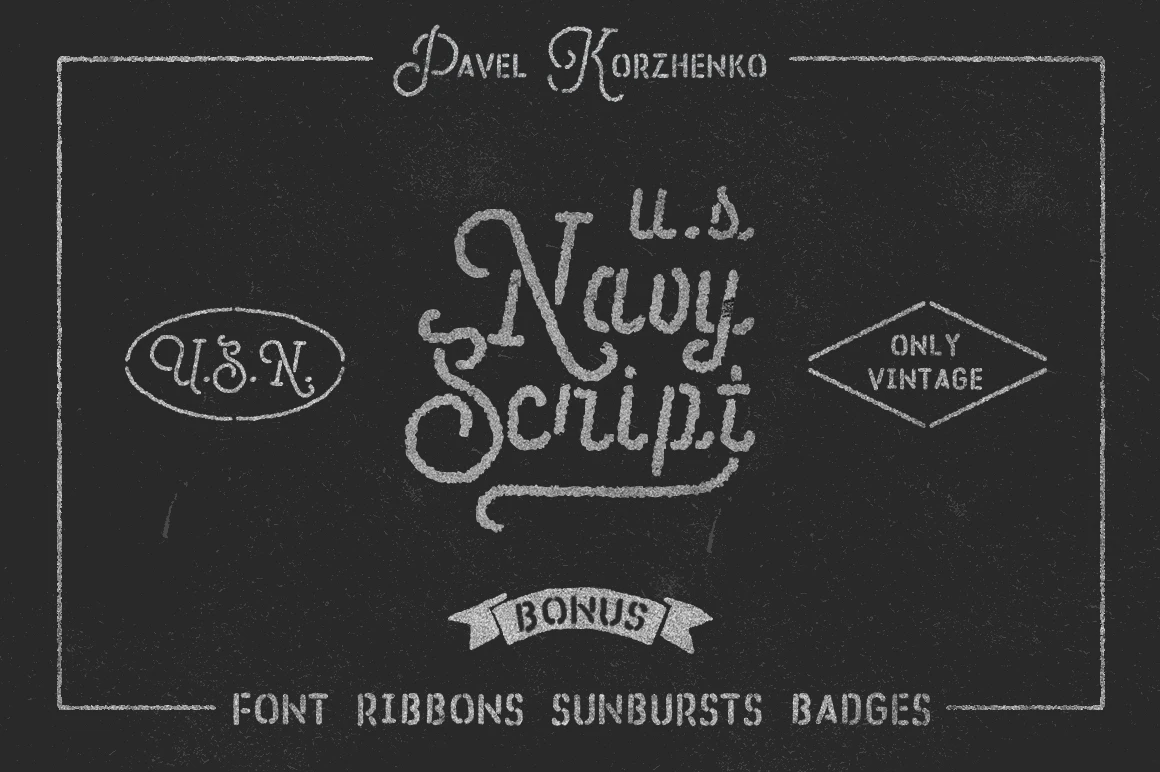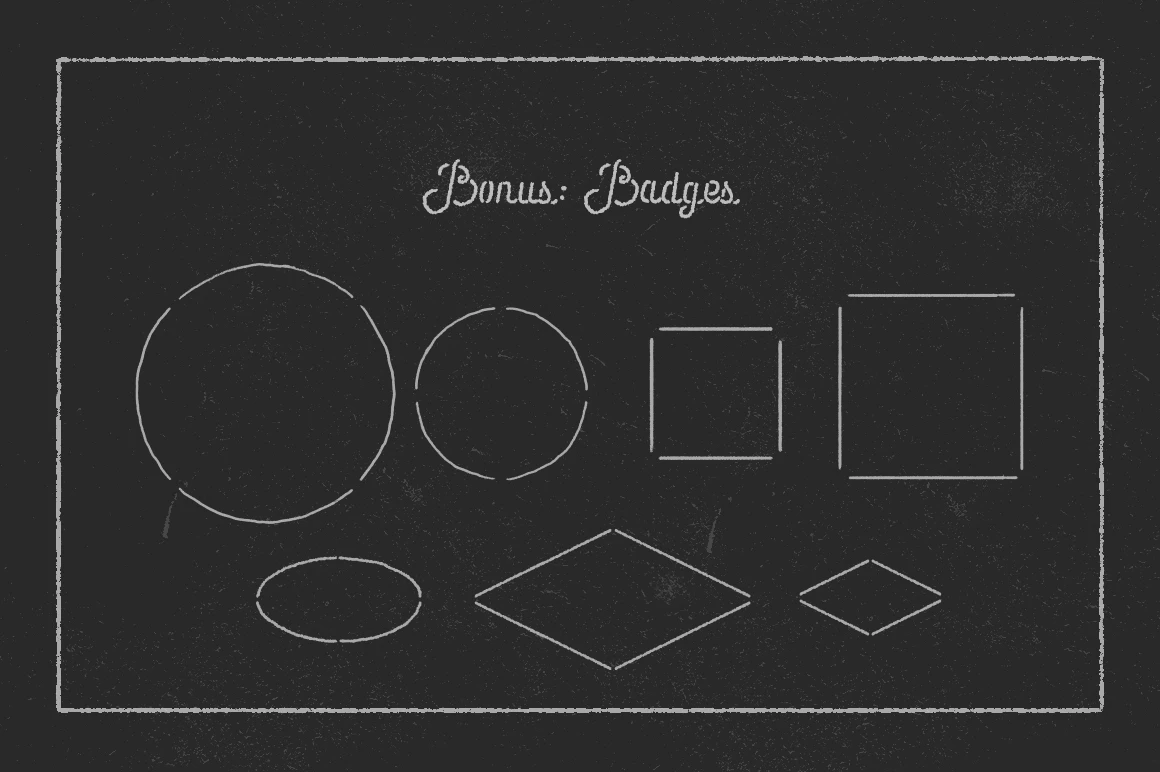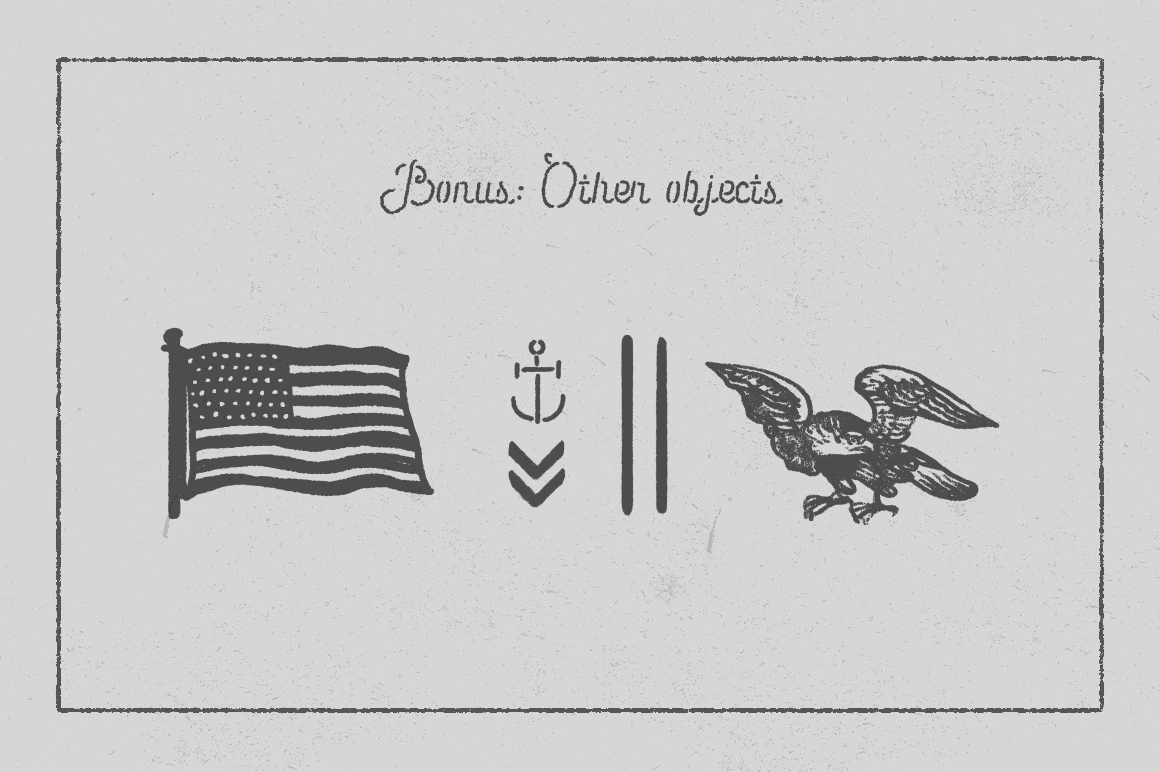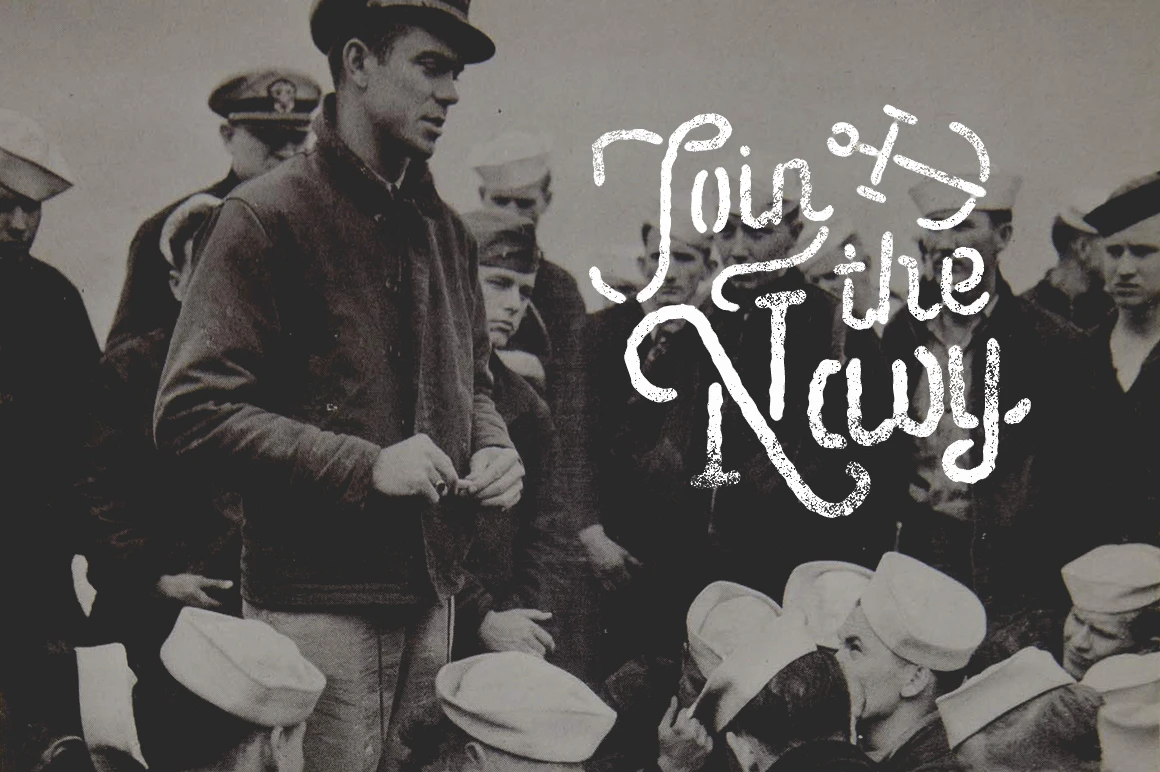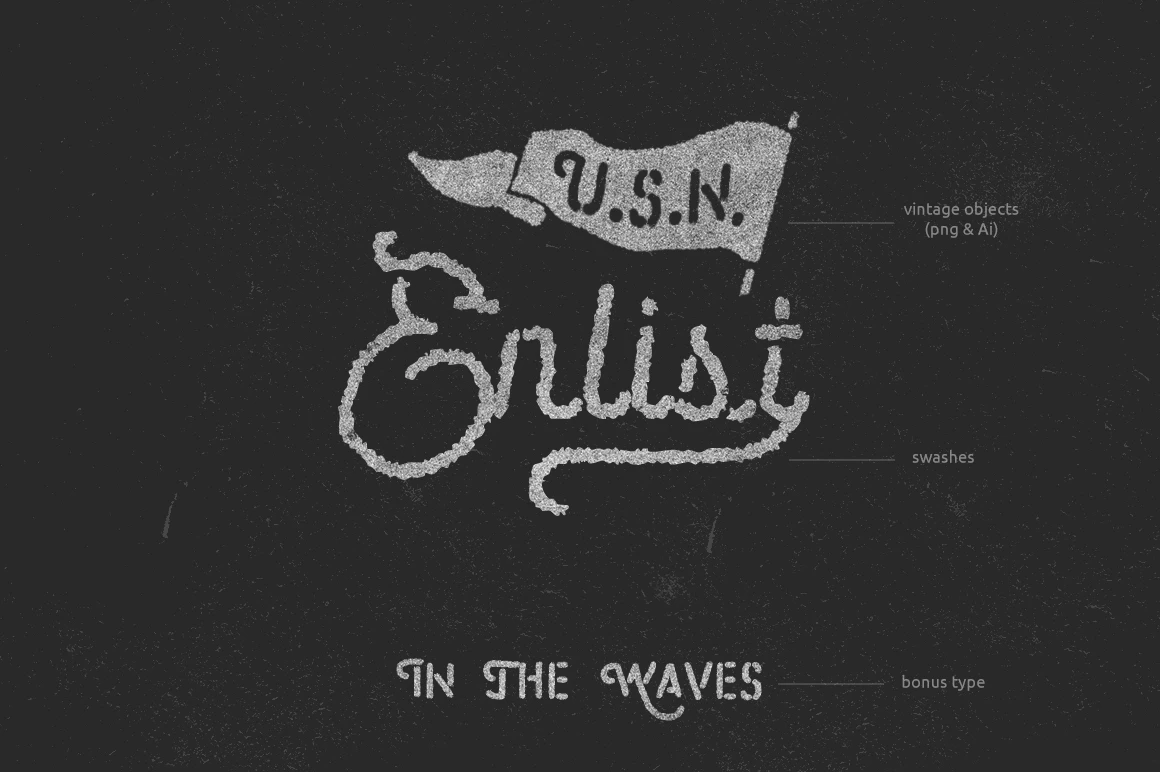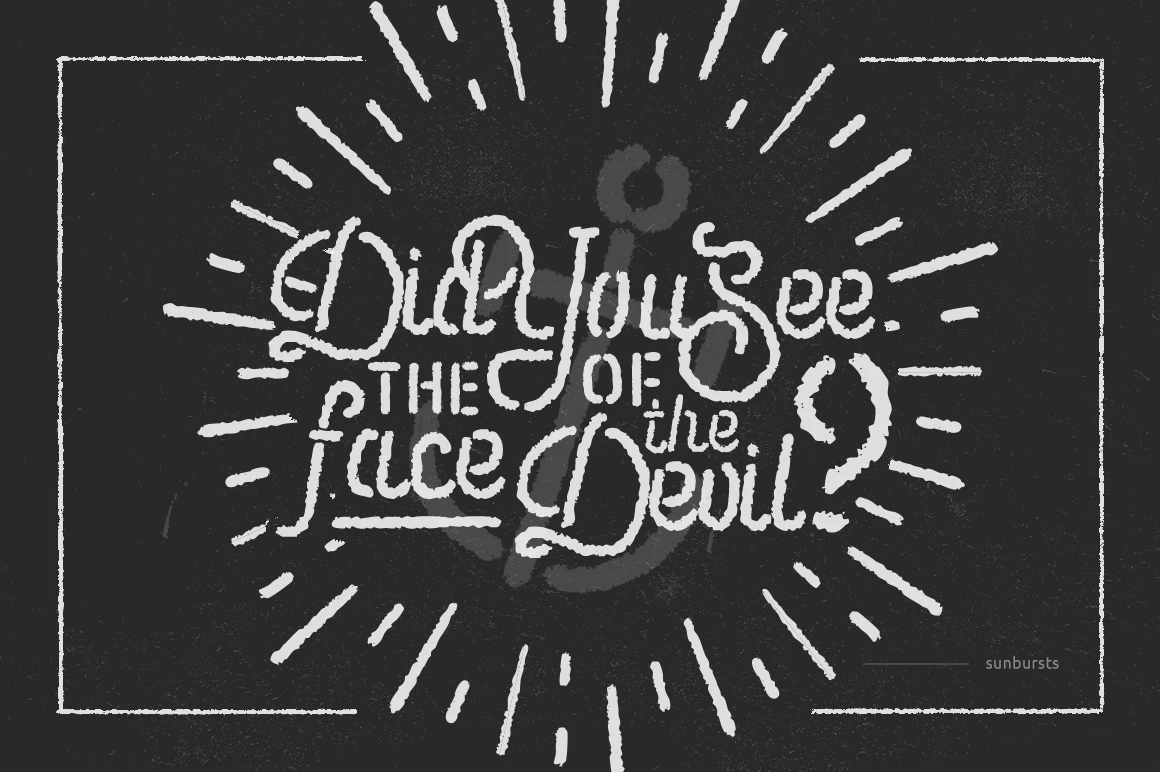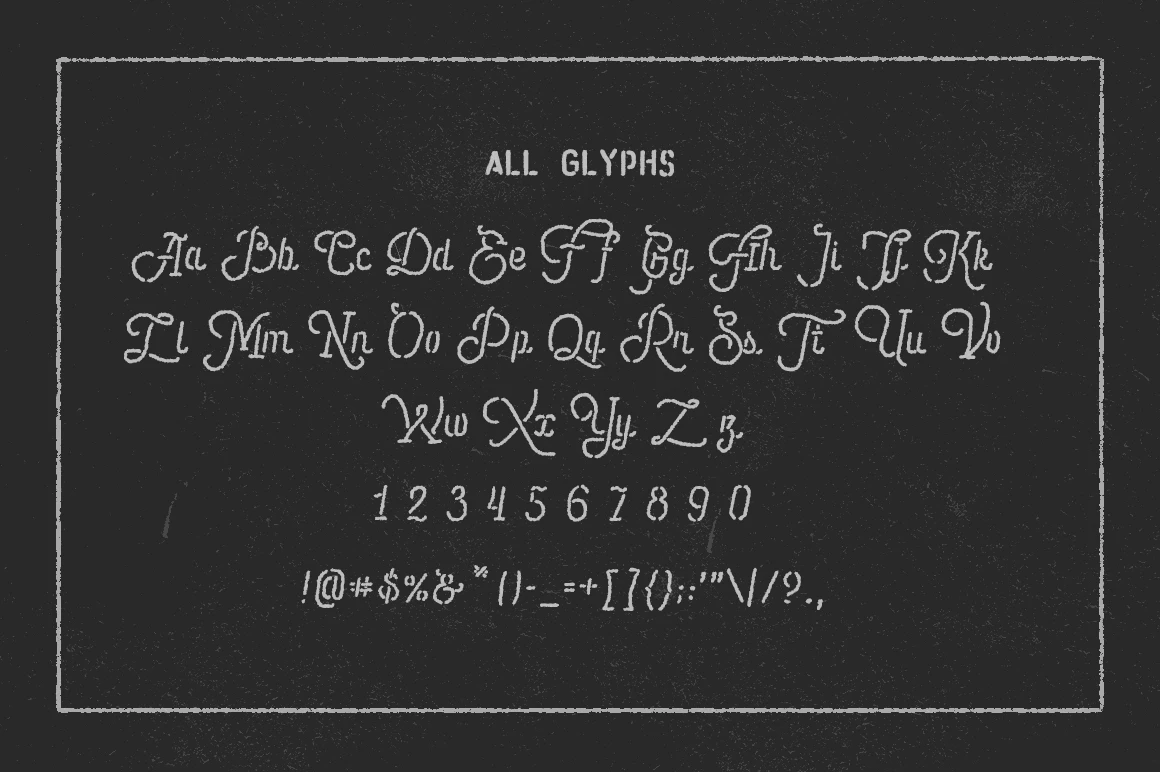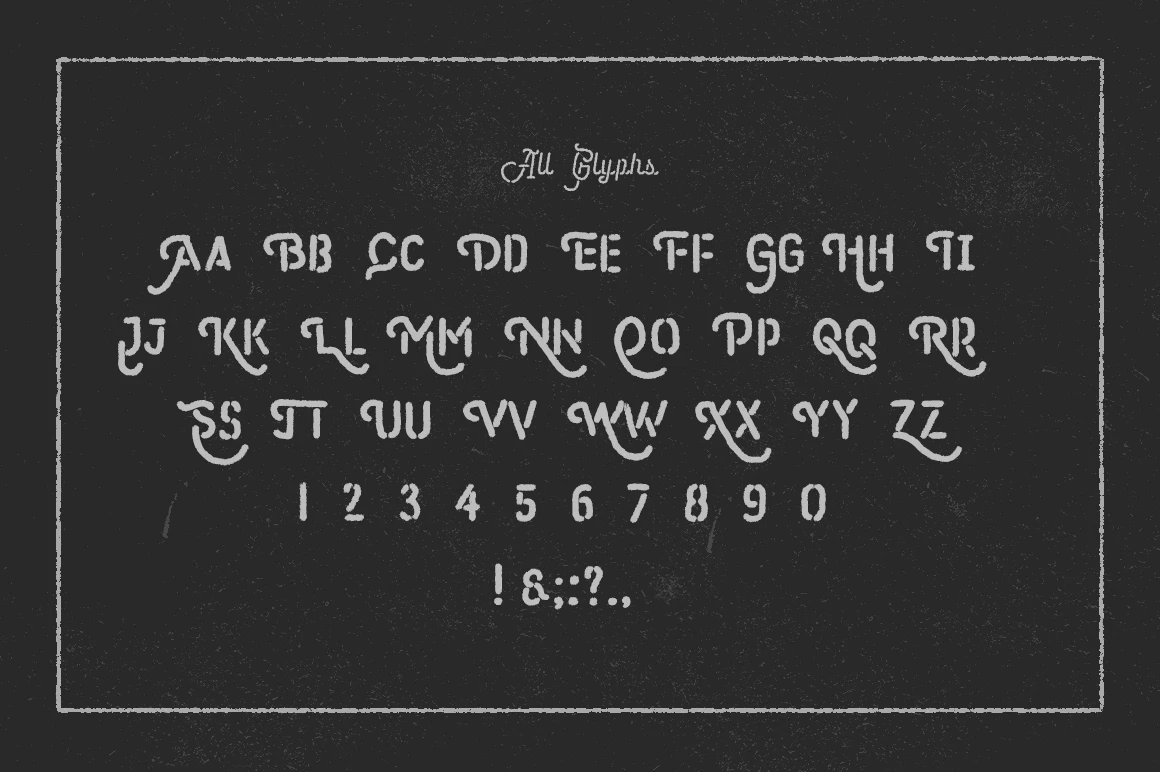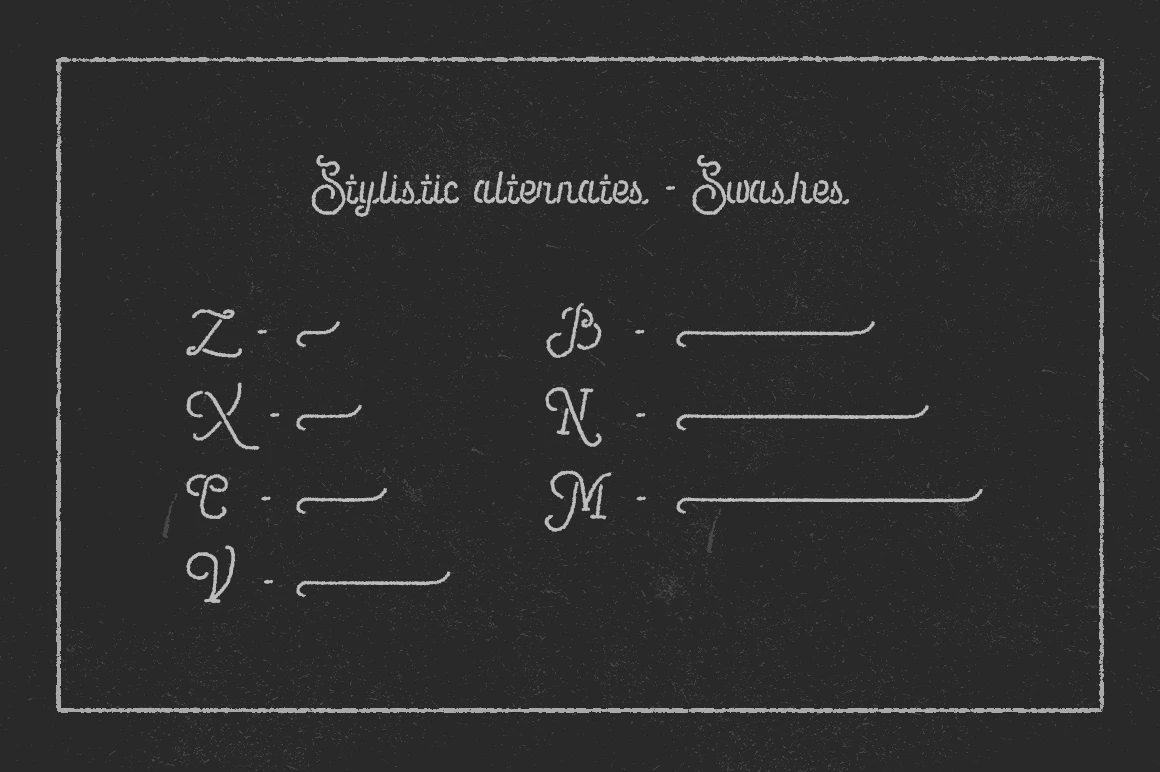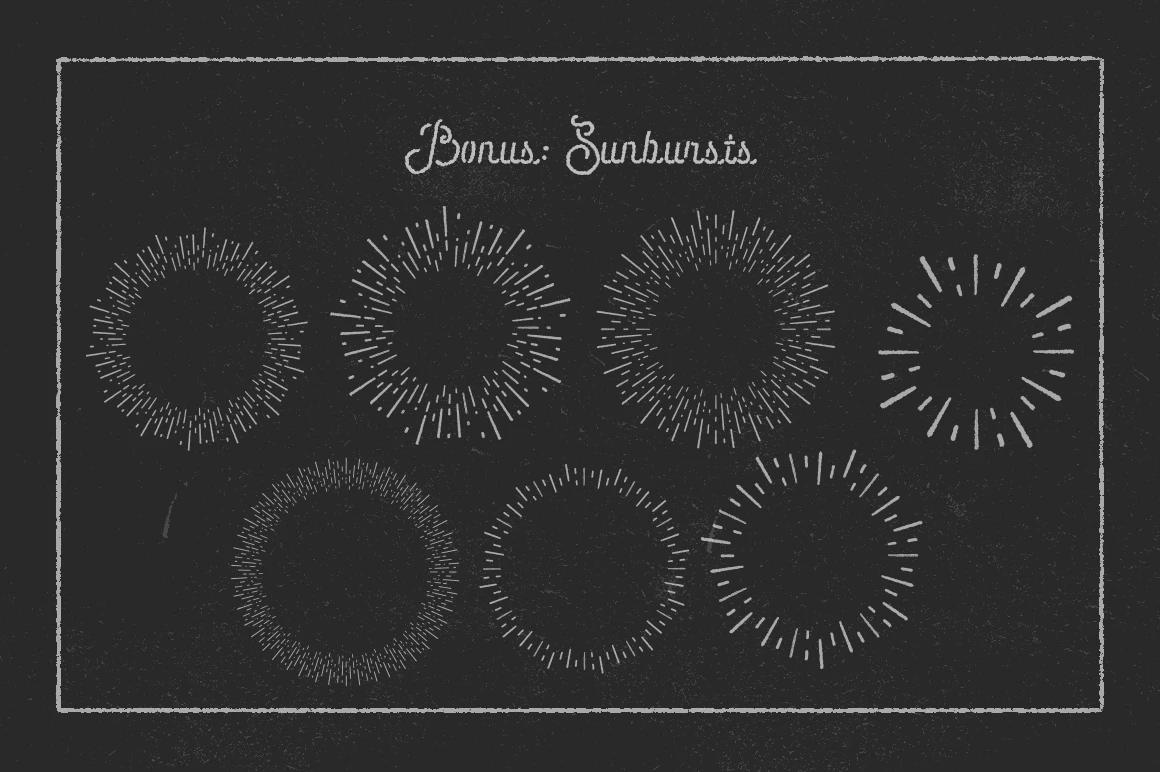
Navy Font Family
Navy is a typeface inspired by American Navy and WWII-era hand lettering. Designed to capture the look and feel of mid-20th-century script styles. Ideal for projects that aim to reflect vintage military aesthetics, historical themes, or classic Americana. A strong choice for posters, apparel, branding, and signage with a nostalgic edge.
• Stylistic Alternates
• Stylistic Sets
Styles included • Script • Stencil